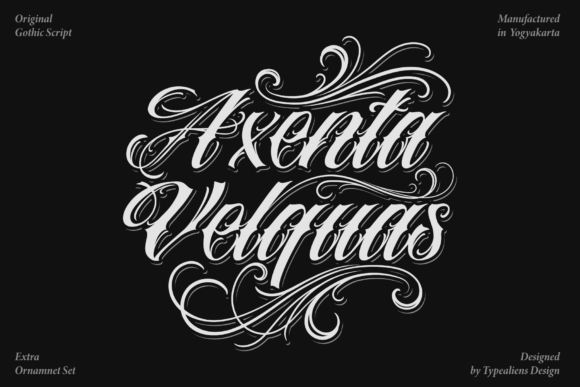
Introducing Axenta Velquas Font: The Ultimate Victorian Handwritten Font
Are you looking for a font that adds a touch of elegance and sophistication to your designs? Look no further than Axenta Velquas Font. This beautiful Victorian handwritten font is perfect for a variety of design projects, including wedding invitations, thank you cards, quotes, greeting cards, logos, business cards, and more.
What is Axenta Velquas Font?
Axenta Velquas Font is a carefully crafted Victorian handwritten font that exudes a sense of luxury and refinement. Its intricate and ornate lettering makes it perfect for designs that require a touch of classic elegance. Whether you’re looking to create a stunning wedding invitation or a beautiful quote, Axenta Velquas Font is the perfect choice.
Key Features of Axenta Velquas Font
- Victorian Handwritten Style: Axenta Velquas Font features a beautiful Victorian handwritten style that is perfect for designs that require a touch of classic elegance.
- Intricate Lettering: The font features intricate and ornate lettering that adds a touch of sophistication to any design.
- Highly Versatile: Axenta Velquas Font is highly versatile and can be used for a variety of design projects, including wedding invitations, thank you cards, quotes, greeting cards, logos, business cards, and more.
- Easily Readable: Despite its intricate lettering, Axenta Velquas Font is easily readable, making it perfect for designs that require a touch of elegance and sophistication.
Uses of Axenta Velquas Font
Axenta Velquas Font is perfect for a variety of design projects, including:
- Wedding Invitations: Add a touch of elegance and sophistication to your wedding invitations with Axenta Velquas Font.
- Thank You Cards: Create beautiful thank you cards that feature intricate and ornate lettering.
- Quotes: Add a touch of classic elegance to your quotes with Axenta Velquas Font.
- Greeting Cards: Create stunning greeting cards that feature beautiful handwritten lettering.
- Logos: Use Axenta Velquas Font to create a logo that adds a touch of sophistication and elegance to your brand.
- Business Cards: Create beautiful business cards that feature intricate and ornate lettering.
Why Choose Axenta Velquas Font?
There are many reasons why you should choose Axenta Velquas Font for your design projects. Here are a few:
- Unique and Elegant: Axenta Velquas Font is a unique and elegant font that adds a touch of sophistication to any design.
- Highly Versatile: The font is highly versatile and can be used for a variety of design projects.
- Easily Readable: Despite its intricate lettering, Axenta Velquas Font is easily readable.
- Supports Multiple Languages: The font supports multiple languages, making it perfect for designers who work with clients from around the world.
Tips for Using Axenta Velquas Font
Here are a few tips for using Axenta Velquas Font:
- Use it for Headings: Axenta Velquas Font is perfect for headings and titles. Use it to add a touch of elegance and sophistication to your designs.
- Experiment with Colors: The font looks stunning in a variety of colors. Experiment with different colors to find the one that works best for your design.
- Pair it with Other Fonts: Axenta Velquas Font pairs well with other fonts. Experiment with different font combinations to find the one that works best for your design.
Axenta Velquas Font is a beautiful Victorian handwritten font that is perfect for designers who want to add a touch of elegance and sophistication to their designs. Its intricate and ornate lettering makes it perfect for a variety of design projects, including wedding invitations, thank you cards, quotes, greeting cards, logos, business cards, and more. With its highly versatile and easily readable design, Axenta Velquas Font is a must-have for any designer looking to create stunning designs.
- What is Axenta Velquas Font?: Axenta Velquas Font is a Victorian handwritten font that features intricate and ornate lettering.
- What is Axenta Velquas Font used for?: Axenta Velquas Font is perfect for a variety of design projects, including wedding invitations, thank you cards, quotes, greeting cards, logos, business cards, and more.
- Is Axenta Velquas Font easily readable?: Yes, despite its intricate lettering, Axenta Velquas Font is easily readable.